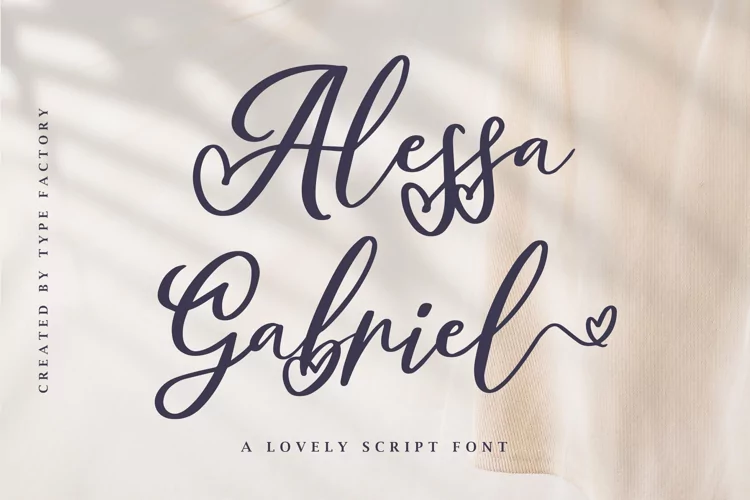
Alessa Gabriel - A Lovely Script Font
Alessa Gabriel is a classy and lovely script font.
It has a elegant style and is perfect for creating original designs.
This lovely handwritten font is really great for a logo, greeting card, makeup brand or skincare branding, quotes, headings, wedding invitations, posters, and many others.
- Symbols & Punctuation
- Numeral
- Ligature
- Alternate